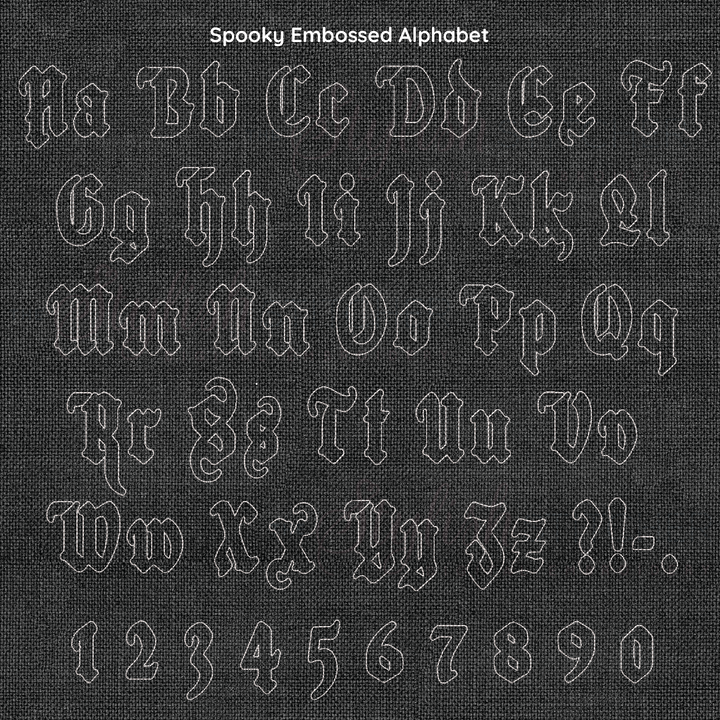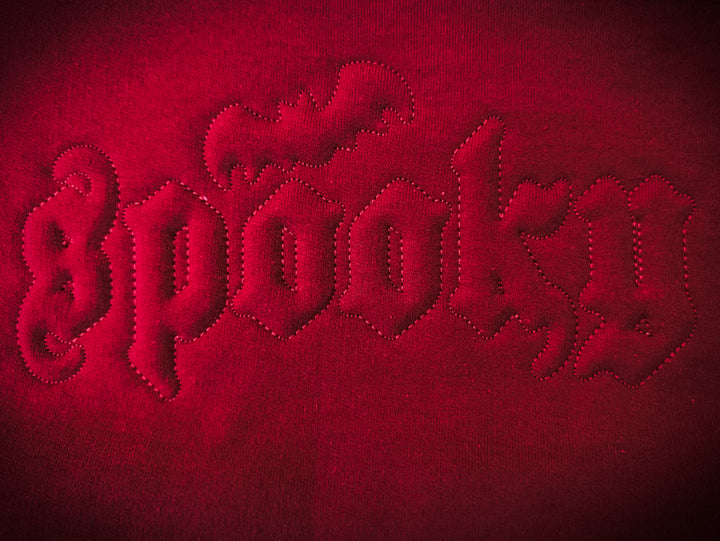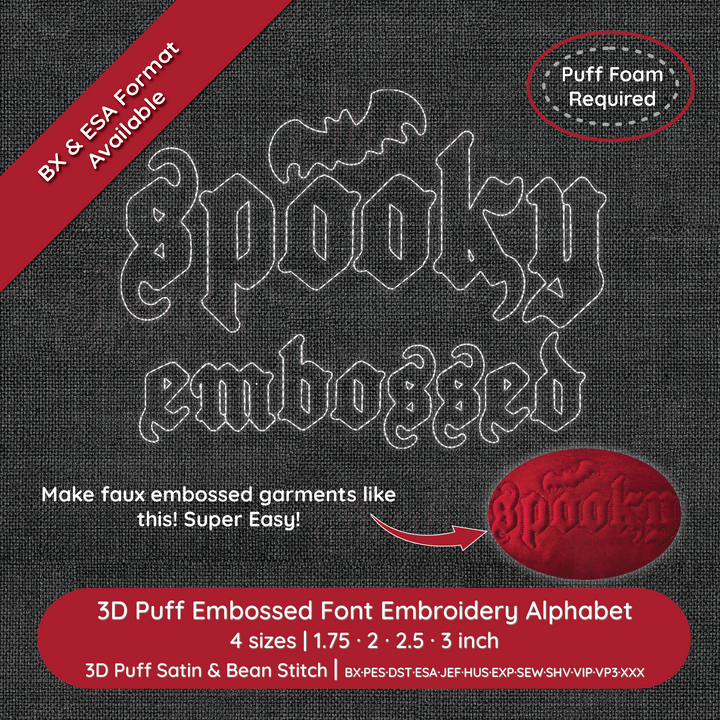
3D Puff Embossed Font Embroidery Alphabet on a black background.
Spooky embossed alphabet and numbers on a textured black background
Embroidered text on a red fabric background using Spooky Embossed font.
Spooky 3D Embossed Puff Digital Embroidery Font
Introducing Spooky Embossed — The easiest way to create the trendy look of embossing using puff foam and en embroidery machine! This font makes it super easy to create this look at home - no scissors or knives needed to cut your foam - let the machine do it for you!
Spooky Embossed Puff Digital Embroidery Font Specs:
Included: Uppercase/Lowercase Letters, Numbers, 4 punctuation, 12 glyphs